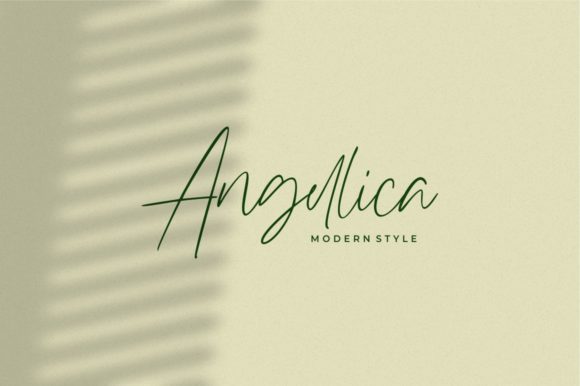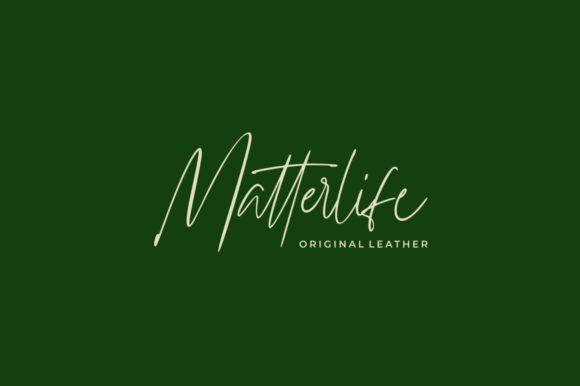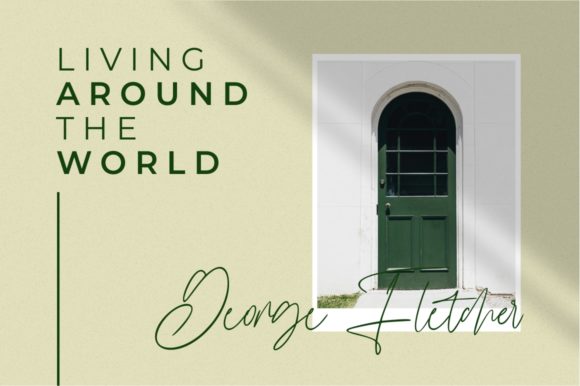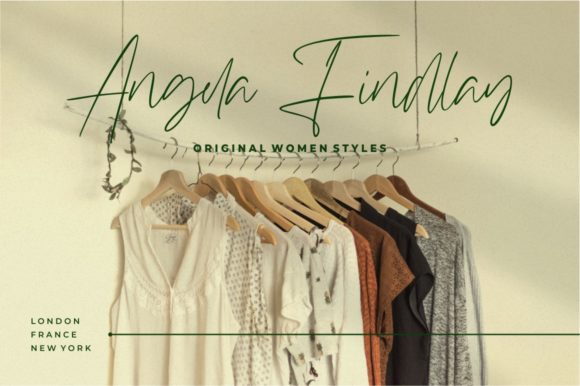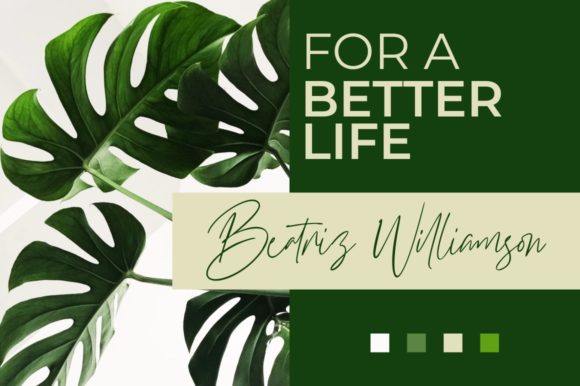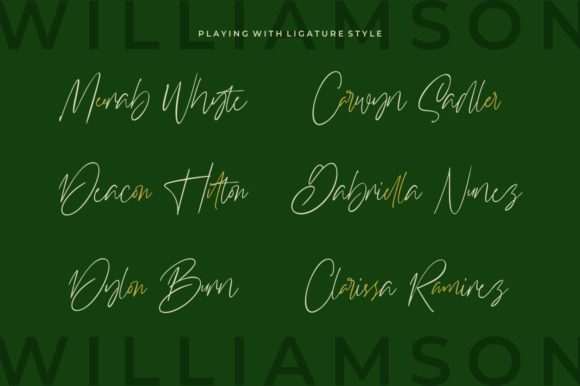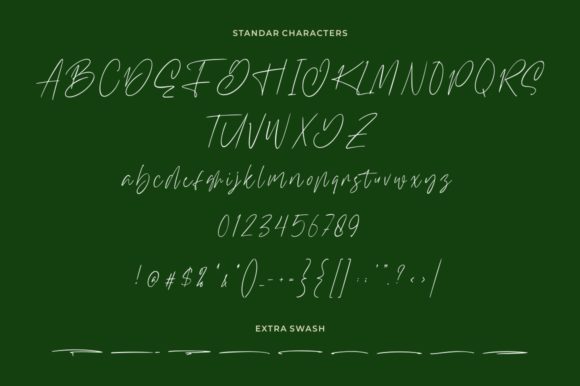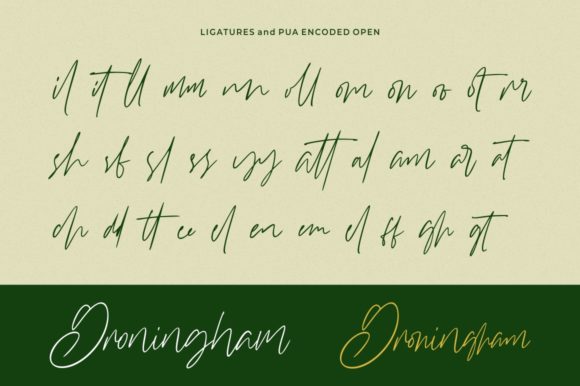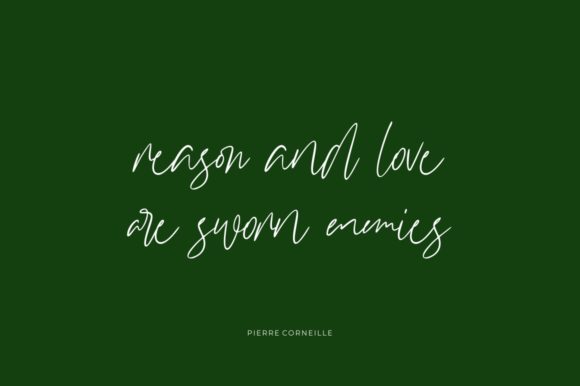
HomeScript FontsWilliamson Font Script Fonts Williamson Font FacebookXPinterestWhatsApp Williamson Font Poster 2 Williamson Font Poster 3 Williamson Font Poster 4 Williamson Font Poster 5 Williamson Font Poster 7 Williamson Font Poster 8 Williamson Font Poster 9 Williamson Font Poster 10 Williamson Font Poster 11 About Williamson Font Williamson is a luxurious and playful script with a contemporary vibe. Get inspired by its minimalist elegance. DOWNLOAD NOW People also explored The Blunt Font Dring Coffee Font Mahavishnu Mixture Font Kinderline Font Autumn Night Font Kiera Font Cookies Handmade Font Redbean Font 360 0 TagsWilliamson Font Previous articleBeauty Beth FontNext articleTaylilla Font LEAVE A REPLY Cancel reply Comment: Please enter your comment! Name:* Please enter your name here Email:* You have entered an incorrect email address! Please enter your email address here Website: Save my name, email, and website in this browser for the next time I comment. Personal Use Free Rozalyn Personal Use Free Read more about this font The Most Beautiful Gift Personal Use Free Read more about this font Peachy Rose Personal Use Free Read more about this font Yumail Personal Use Free Read more about this font BLOG 5 Fonts That Will Dominate Design Trends in 2026 5 Fonts for 2026 That Will Dominate Design Trends Typography plays a critical role in visual communication, and as we look ahead to 2026, it’s... Modern Sans-Serif Fonts That Brands Love in 2025 Using Fonts in Digital Marketing: Tips to Strengthen Your Brand Identity Fonts That Capture the Spirit of New York City